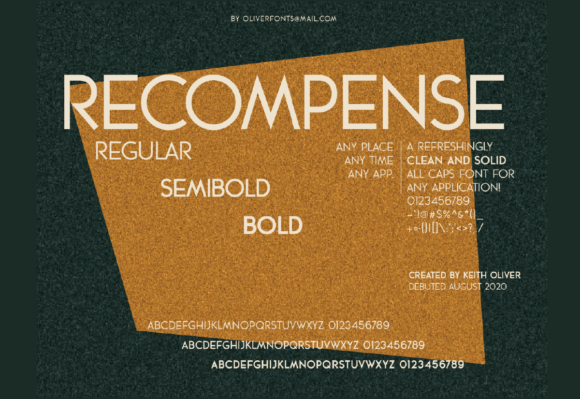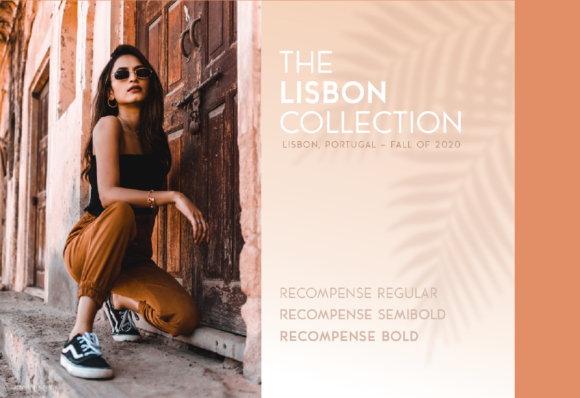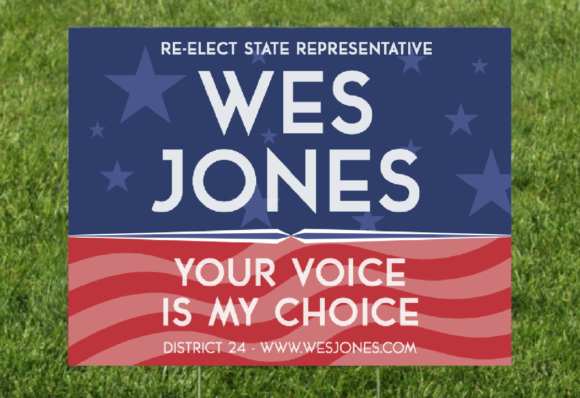
Introduction to Recompense Font
Remember the moment when a single design element completely transformed your creative project? For many designers, it’s that one perfect font that takes their work to the next level. The Recompense Font is one of those game-changers, offering a sleek and modern sans serif design that effortlessly elevates any project.
With its versatility and high quality, the Recompense Font has become a valuable resource for designers looking to add a touch of sophistication to their work. Whether you’re working on a logo, brochure, or website, this font is sure to make your design stand out. Plus, with a transparent background, it’s easy to layer and manipulate, making it a must-have for any creative project.
As a free download, the Recompense Font is an accessible design resource that can be used across a wide range of projects, from business cards to digital interfaces. Its clean lines and modern aesthetic make it an ideal choice for designers seeking a high-quality font that will add a touch of professionalism to their work.
Key Features of Recompense Font
- High-quality design resource perfect for creative projects requiring a unique touch.
- Transparent background option allows for seamless integration into various design environments.
- Font size: 256 glyphs, including a wide range of characters and symbols, making it suitable for various design applications.
- High-resolution design ensures crisp and clear text display, ideal for both digital and print media.
- Unique font design with a modern aesthetic, perfect for adding a touch of sophistication to any creative project.
Honest Review: Recompense Font
I recently had the chance to work with the Recompense Font, and I must say it’s been a game-changer for my creative project. This free download has been a fantastic design resource that has elevated my work to the next level.
Here are some things that work well:
- High-quality typography: The Recompense Font offers a range of styles and weights, making it perfect for any creative project.
- Transparent background: This feature allows for seamless integration with any design, giving me more flexibility and control.
While the Recompense Font is a great addition to any design arsenal, there are a few limitations:
- Limited customization options: While the font itself is versatile, the customization options are somewhat limited.
- Not ideal for small text: At times, the font can appear a bit too bold or chunky for small text.
Overall, I’m really impressed with the Recompense Font. Its high quality, transparent background, and ease of use make it a valuable design resource. While it may have some limitations, I believe the benefits far outweigh the drawbacks. If you’re looking for a reliable font to elevate your creative project, I highly recommend giving the Recompense Font a try. ✨
Tips for Getting the Most Out of Recompense Font
To get the most out of the Recompense Font, use it in combination with other design elements, such as images and graphics. Experiment with different font sizes and styles to create a visually appealing design. The transparent background feature also allows for creative and unique design possibilities.
Common Use Cases for Recompense Font
The Recompense Font is perfect for a variety of creative projects, including business cards, brochures, and social media graphics. Its high-quality design and transparent background feature make it an ideal choice for designers and non-designers alike.